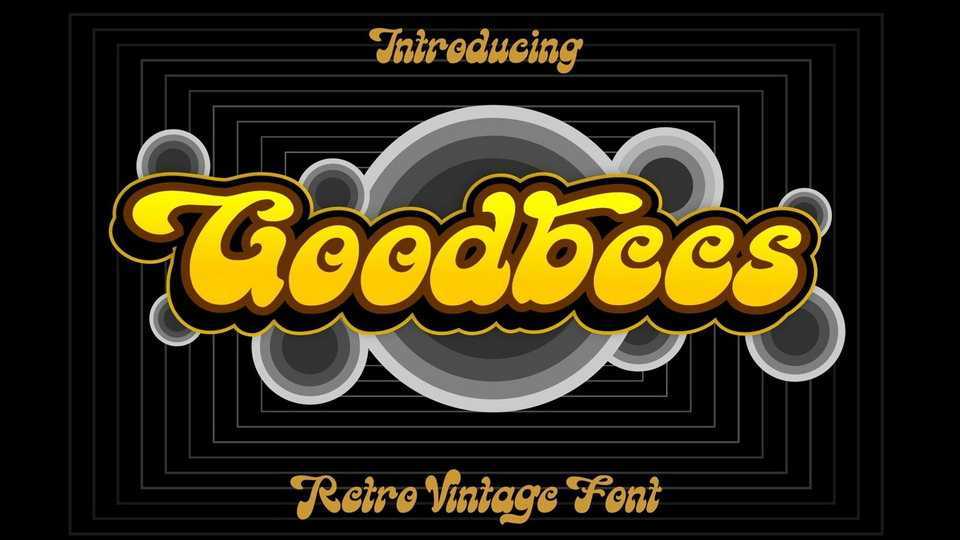
Download Goodbees font, a funky groovy hand lettered display typeface with an incredible vintage aesthetic. Use Goodbees to add that special retro touch to any design idea you can think of!
Designer: Seventype